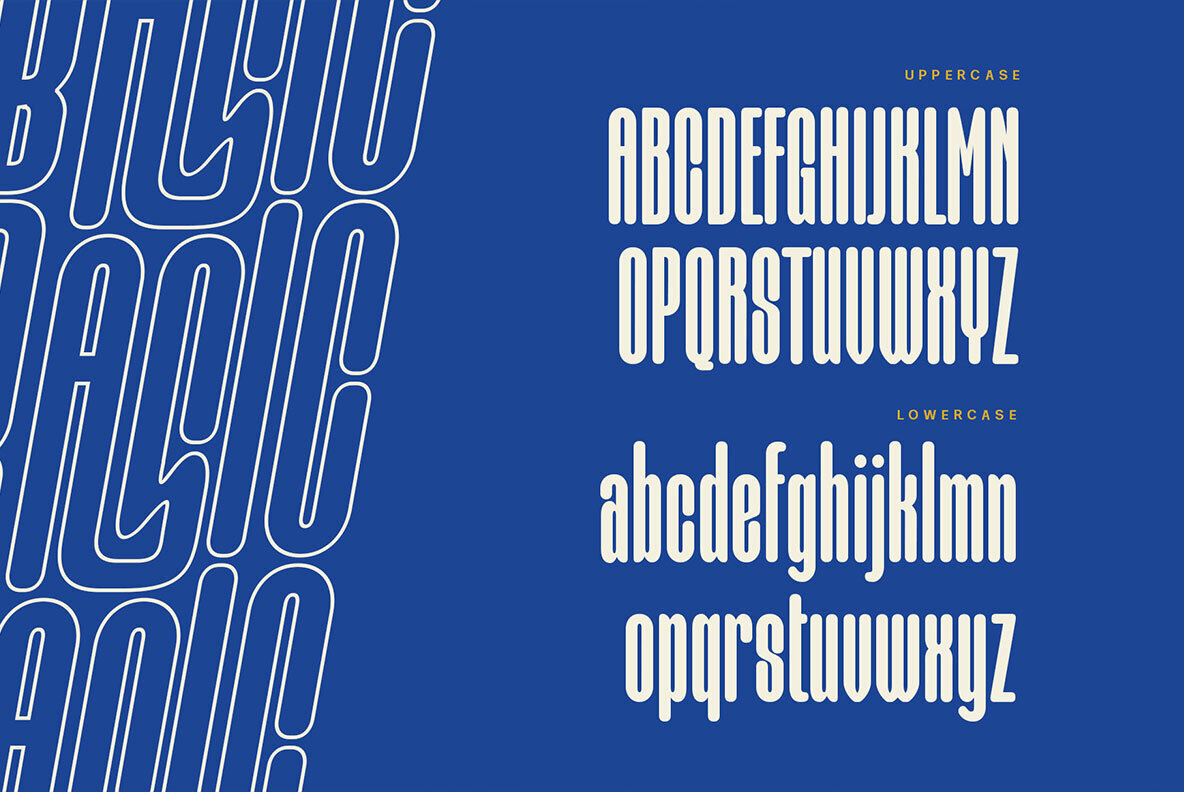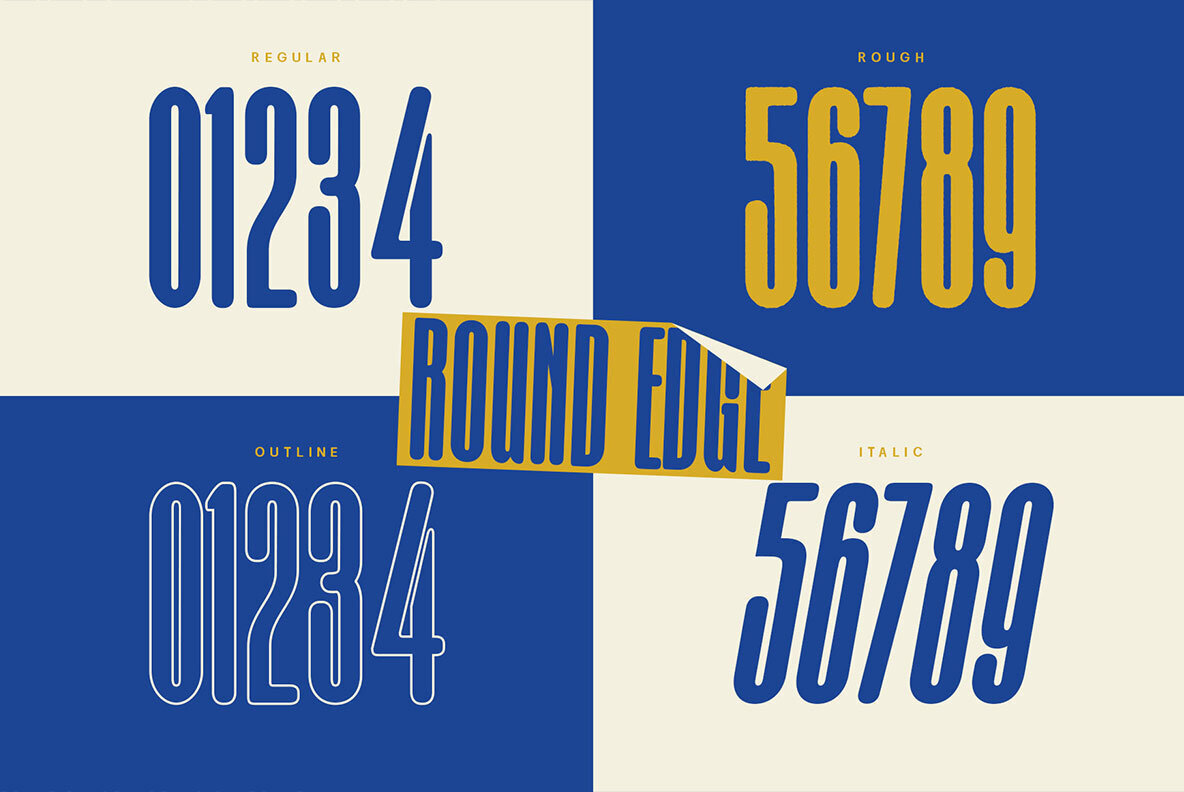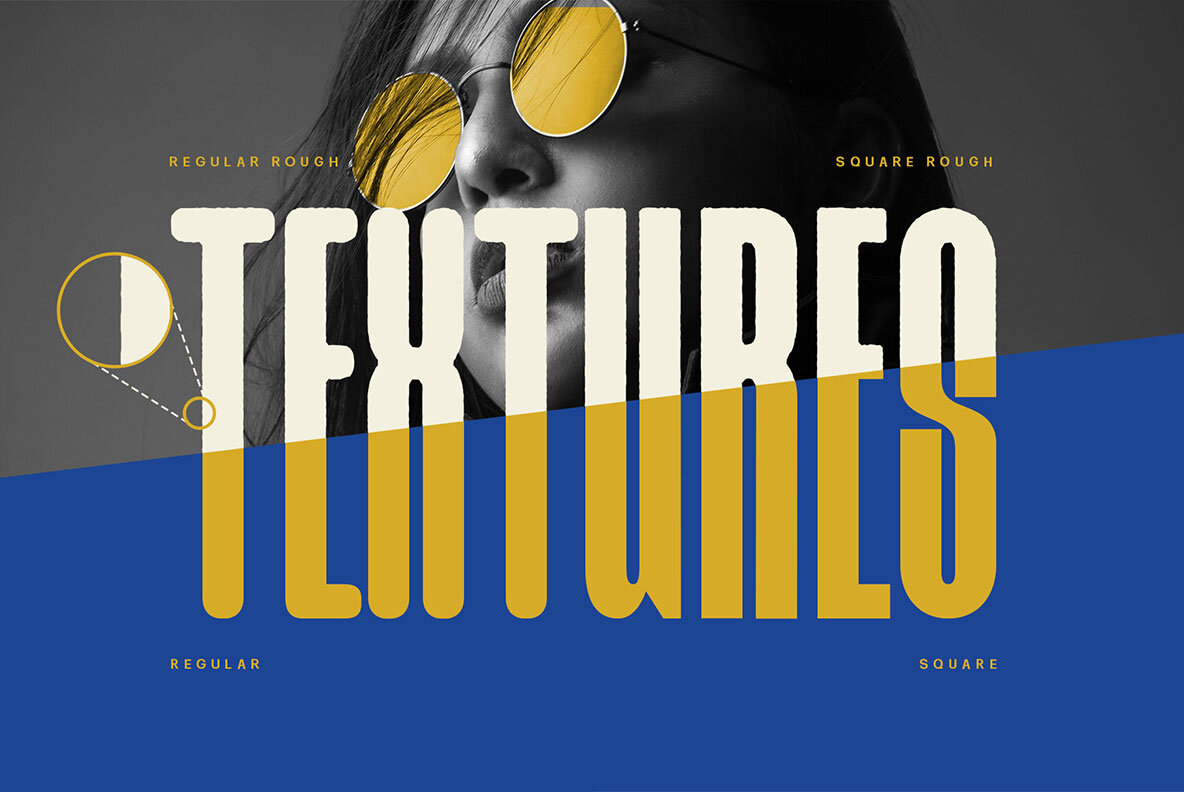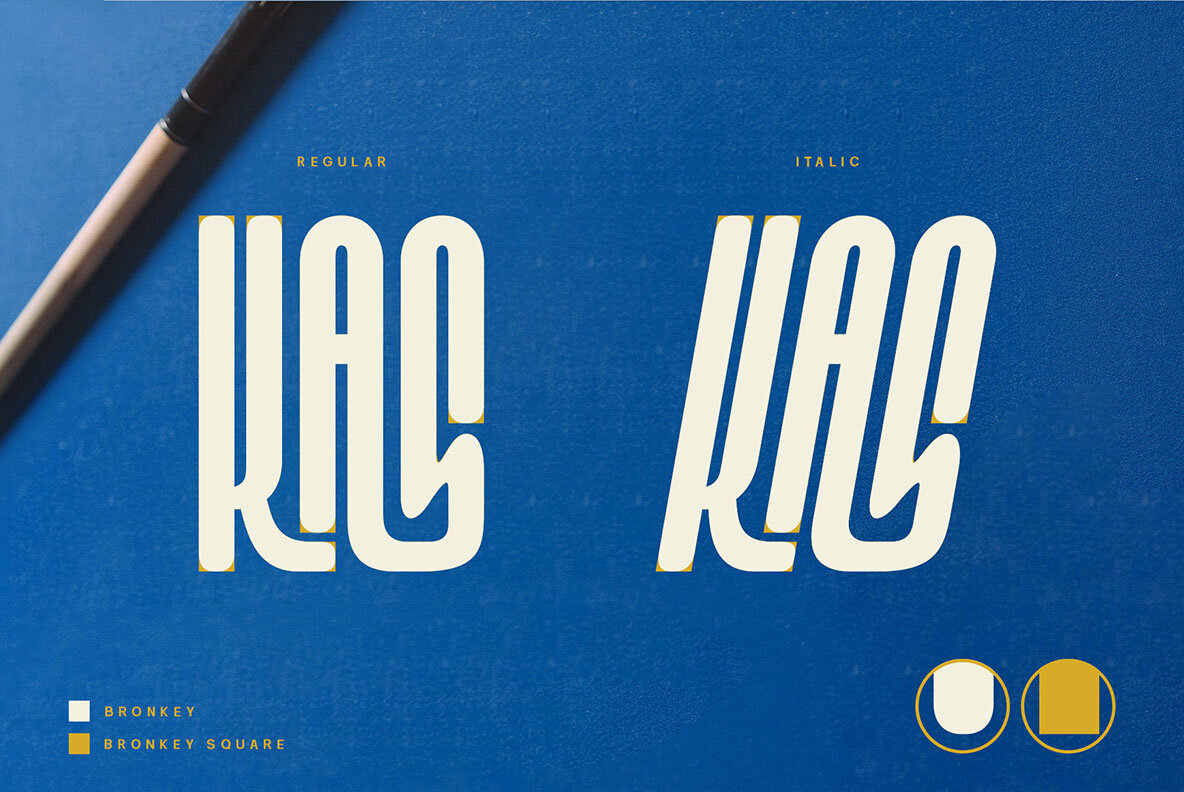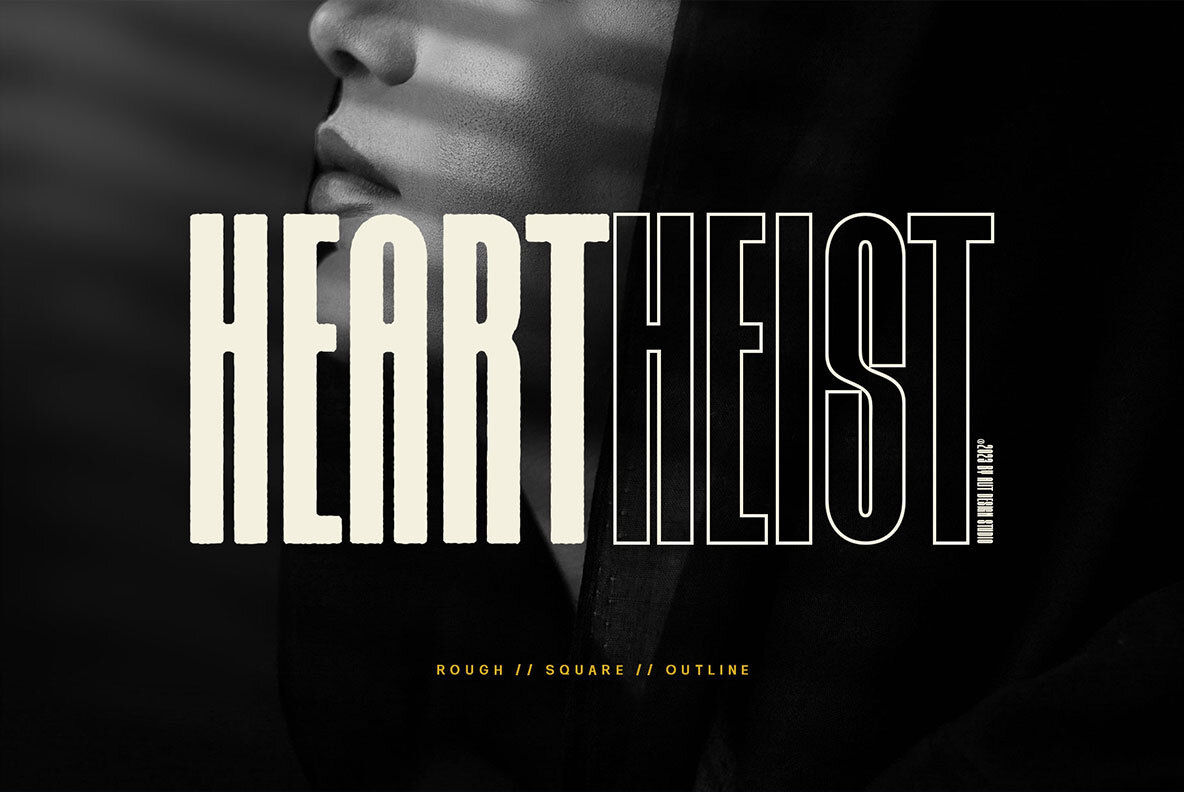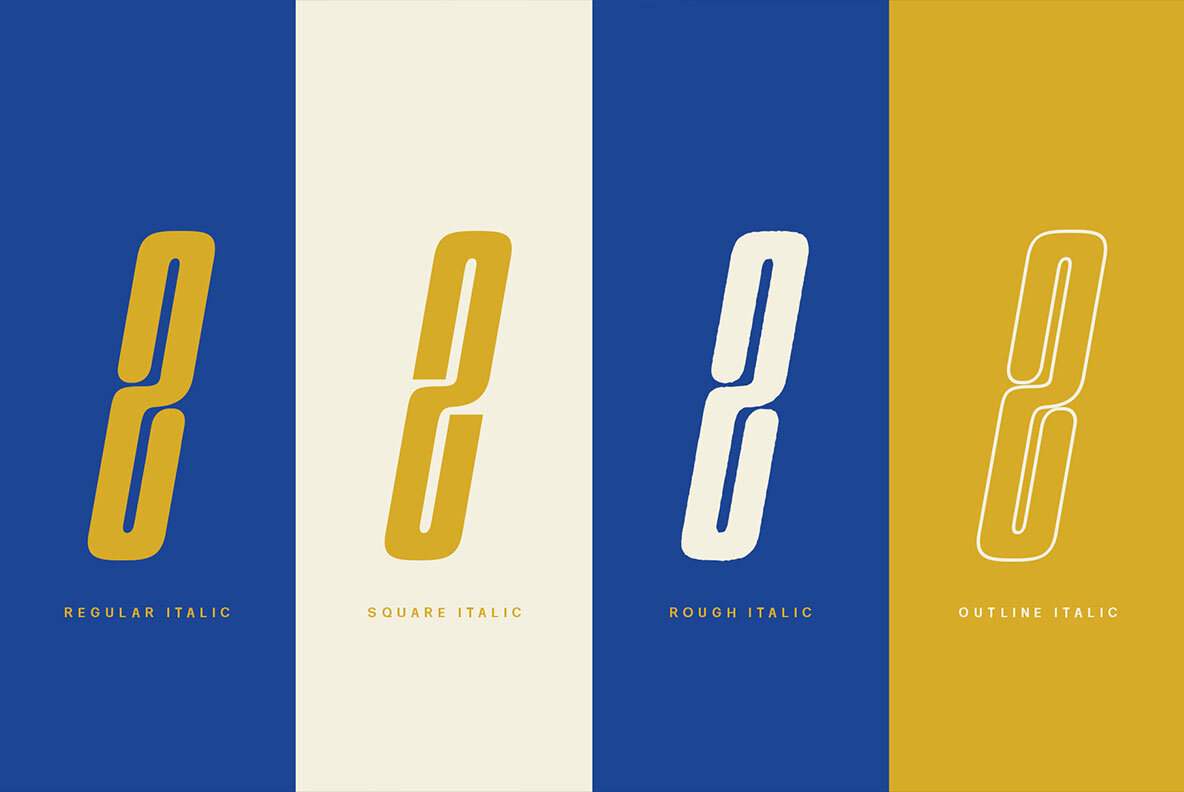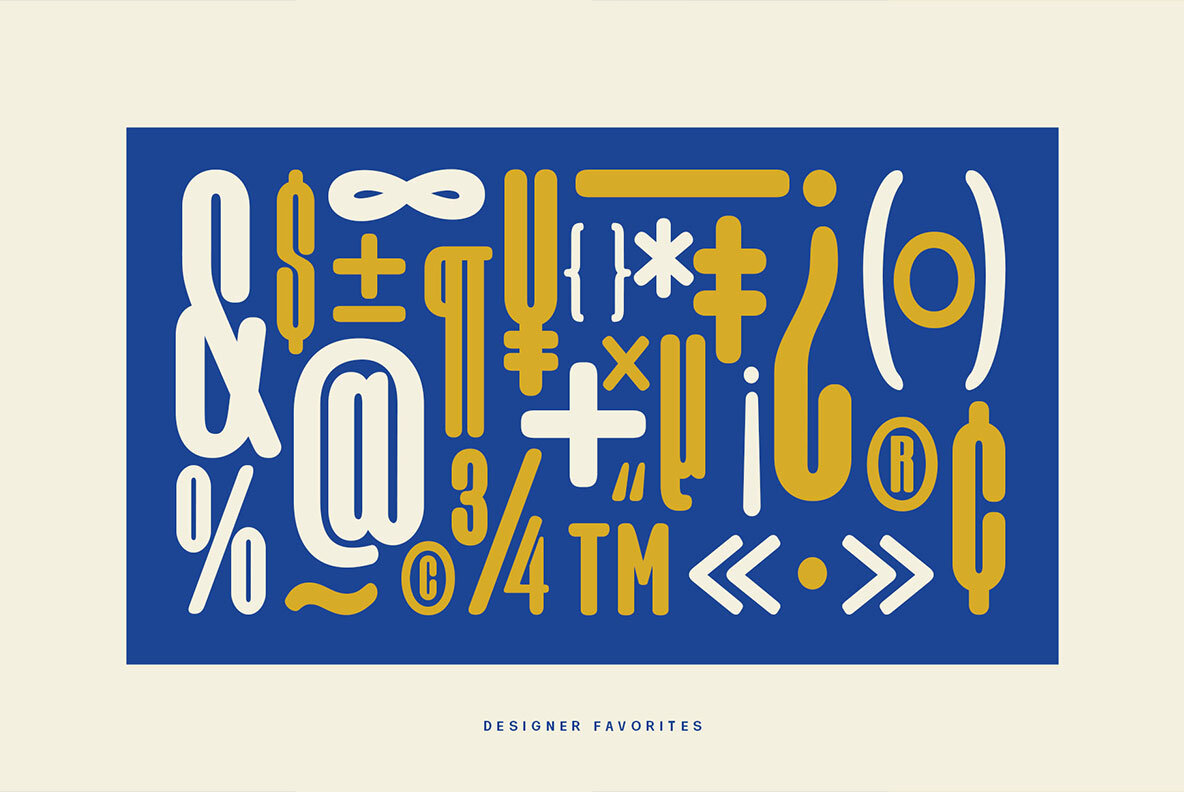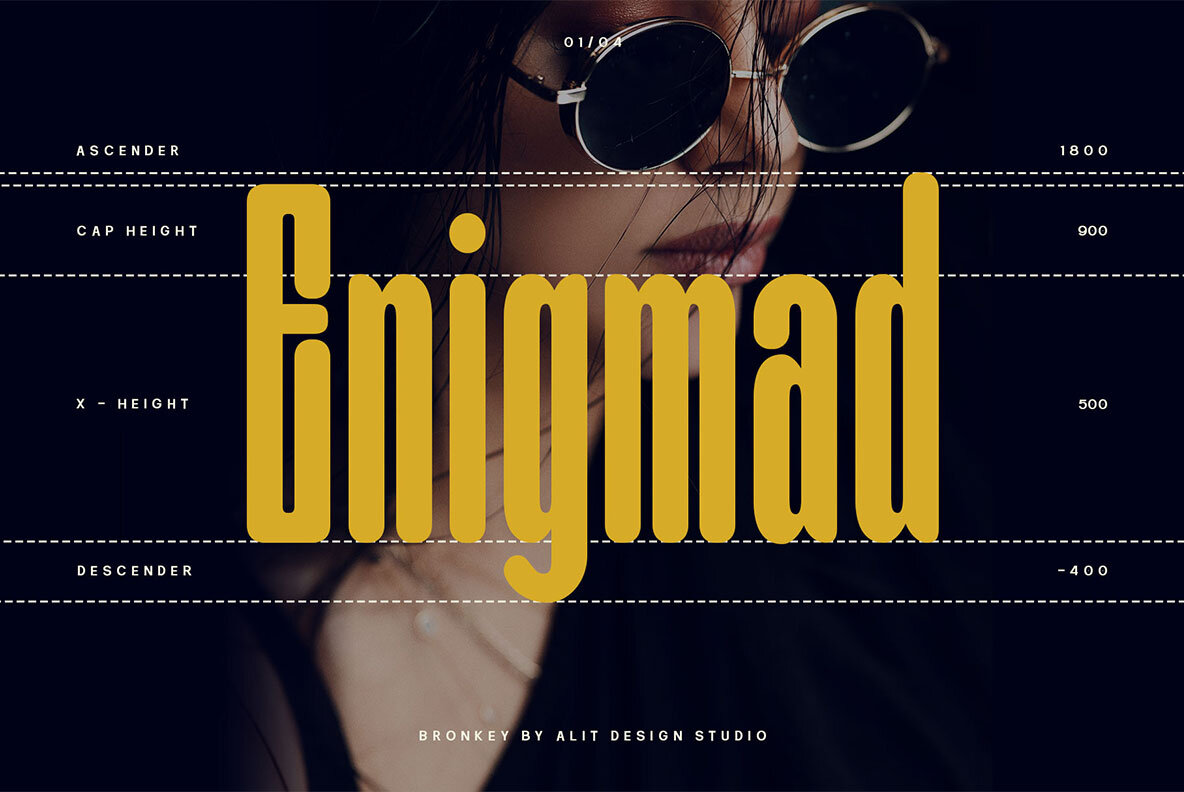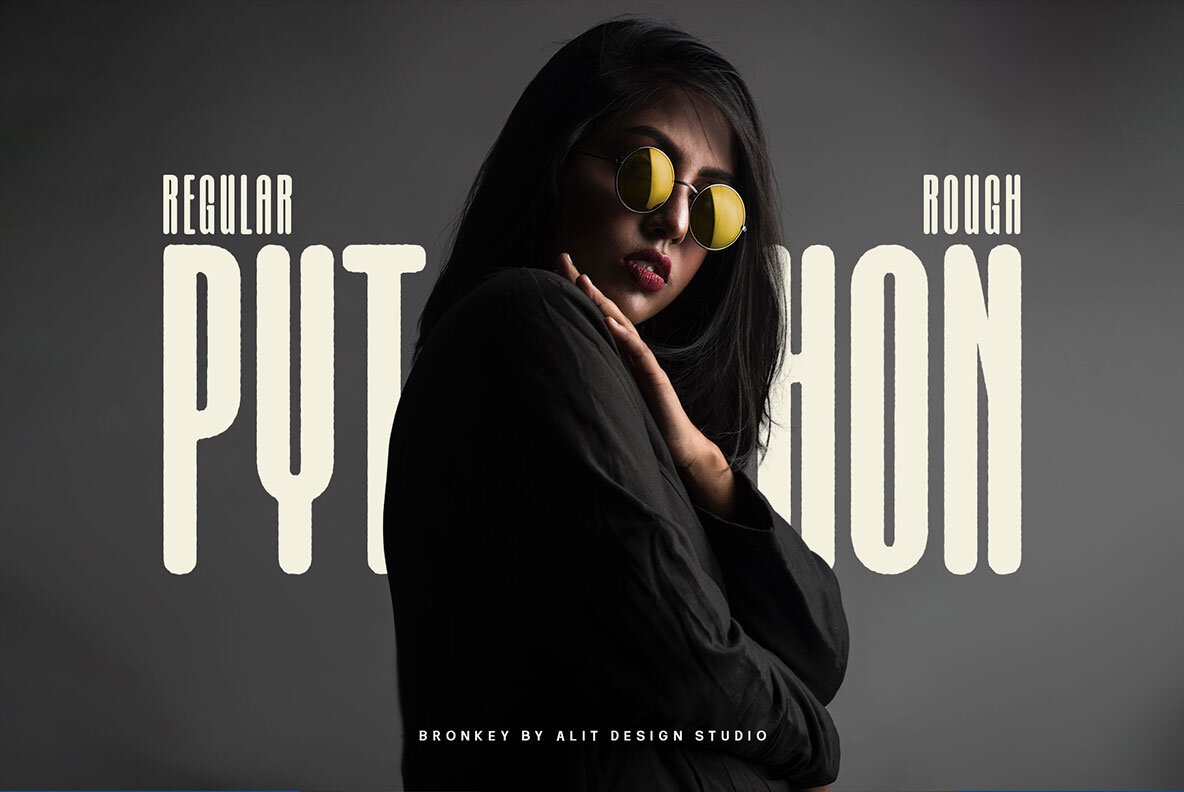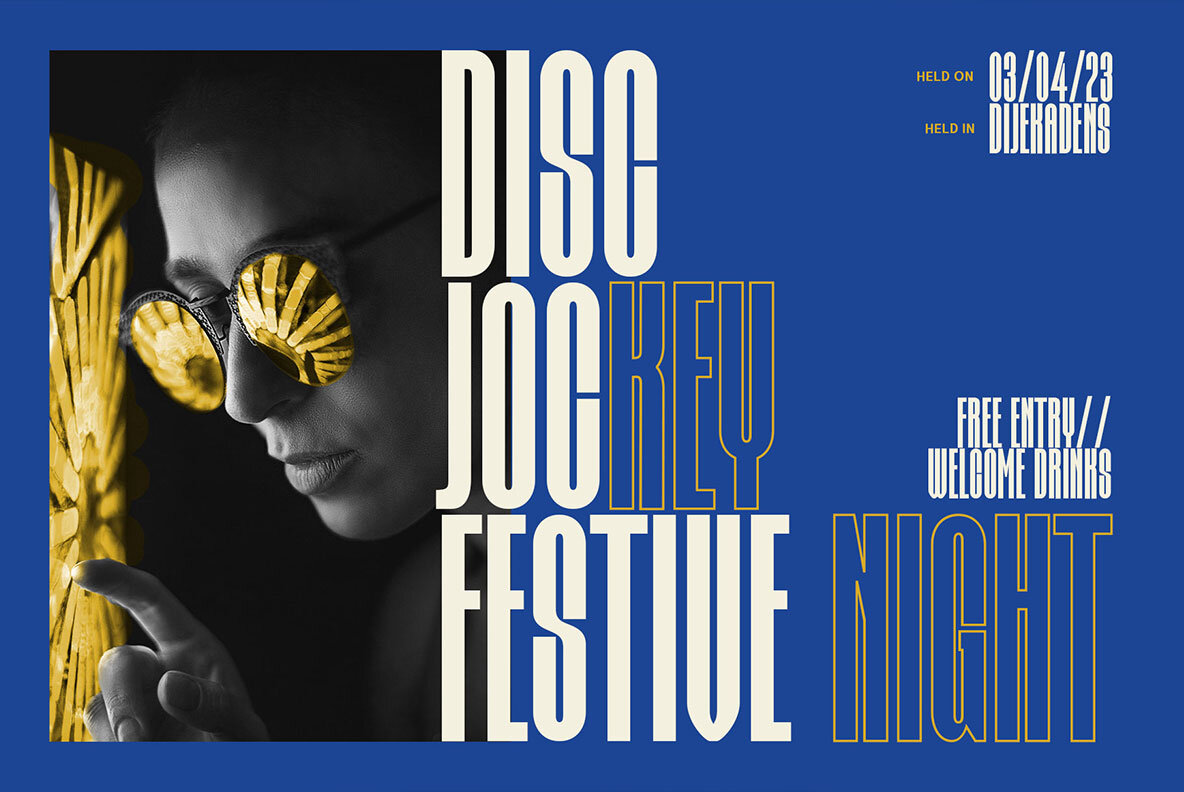
Bronkey Font
Introducing Bronkey, a bold and sporty sans serif typeface with a versatile range of styles like regular, italic, outline, square, and rough. Its high body makes it perfect for headlines, titles, or any project requiring an attention-grabbing font. With 700 glyphs, including ligatures and alternates, Bronkey offers immense creative flexibility. It supports PUA codes and is multilingual, catering to a diverse audience. Ideal for sports, fitness, or dynamic projects, Bronkey is the go-to choice for a modern, bold font. Language Support: Latin, Basic, Western European, Central European, South European, Vietnamese. To fully utilize the swashes, use OpenType feature-supporting programs like Adobe Illustrator CS, Adobe Photoshop CC, Adobe Indesign, or Corel Draw. For software without a Glyphs panel, install the additional swashes font files.